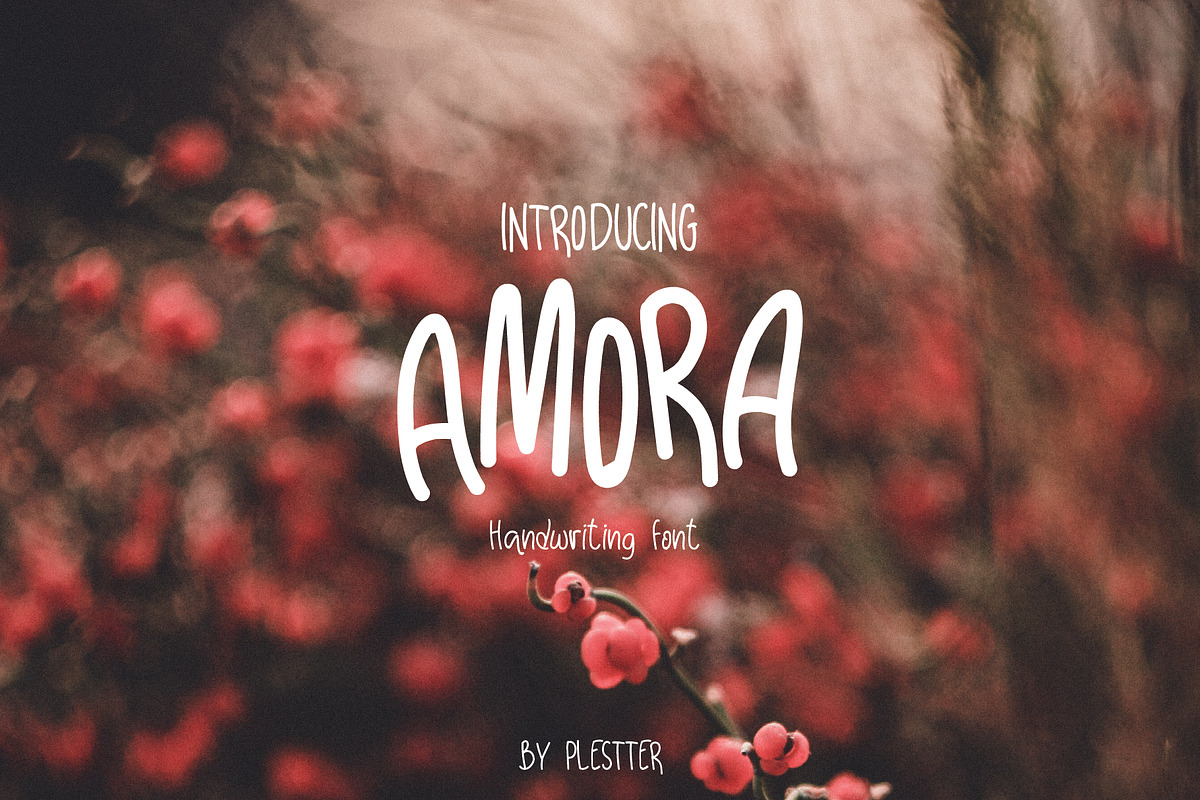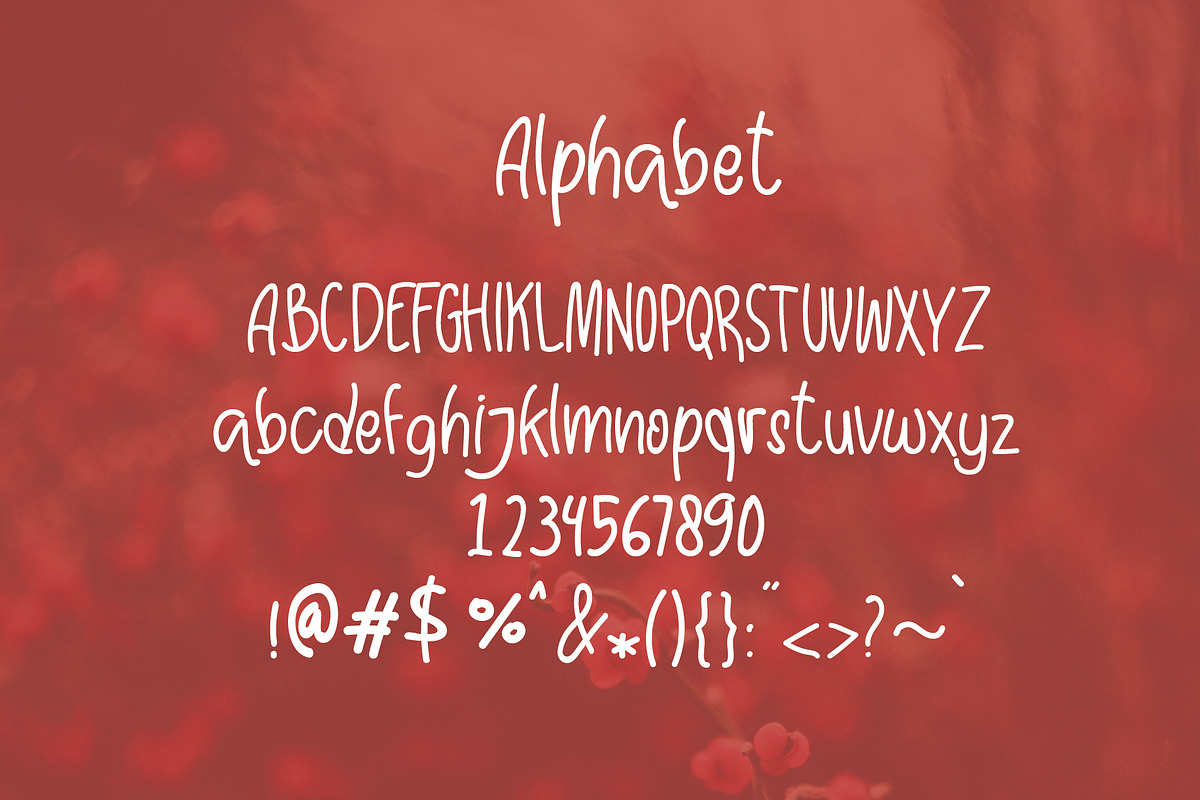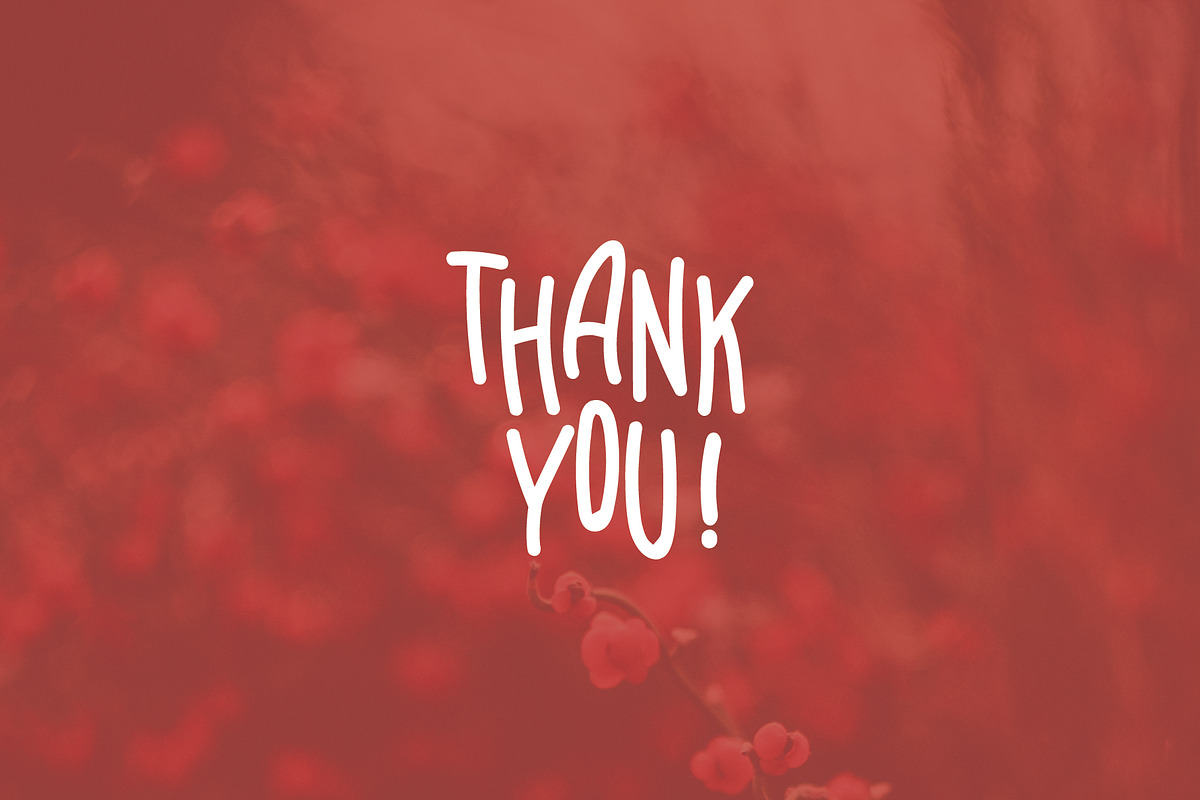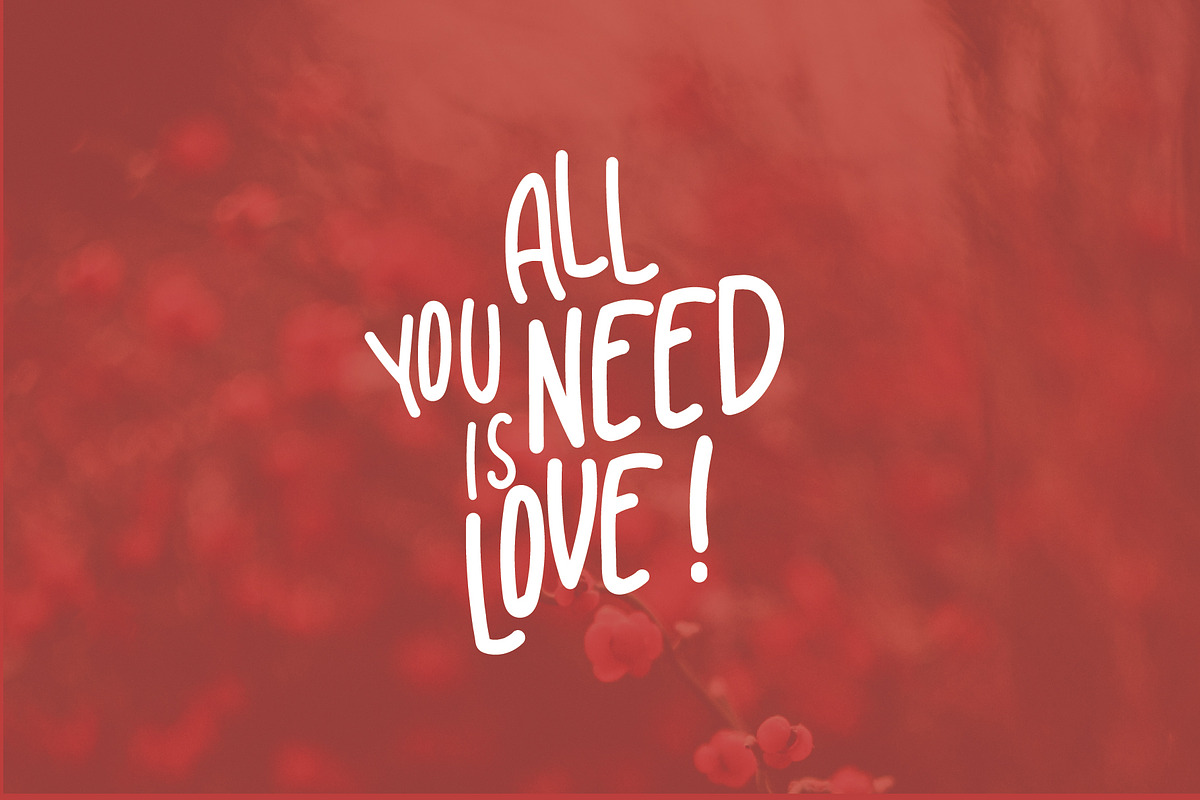
Amora - Cute Font
Amora Handlettering Cute font is casual font for your text display or logo .
Amora - Cute Font by ulndsgn fits naturally into Branding, posters, packaging, typography.